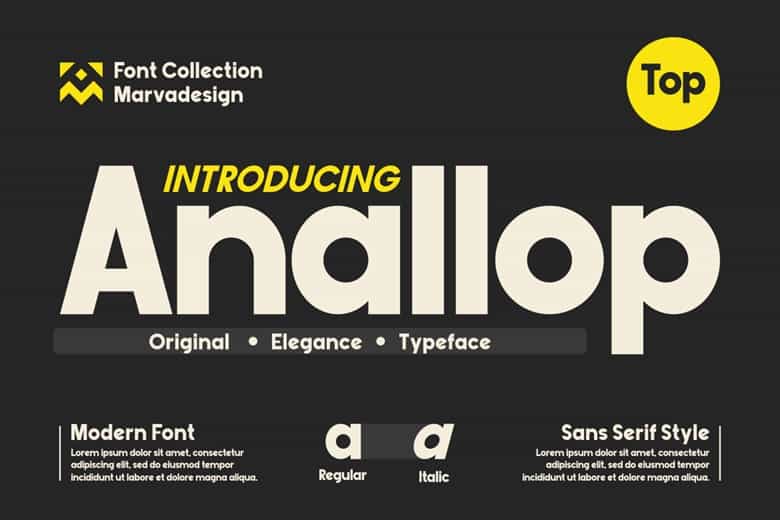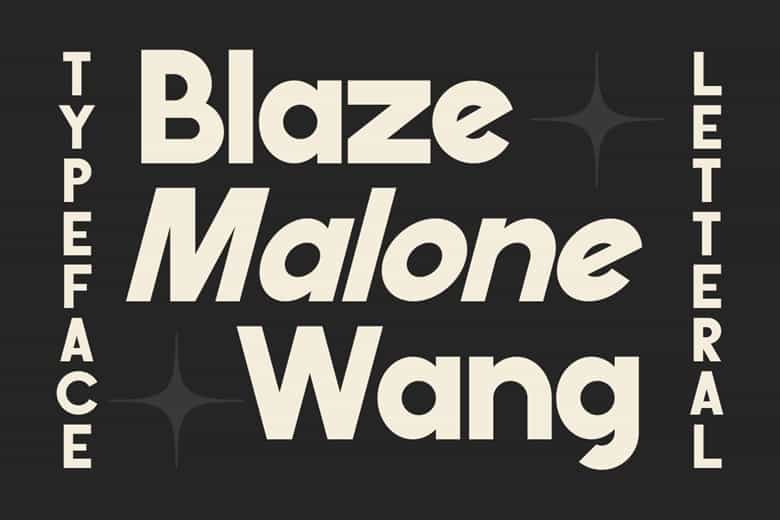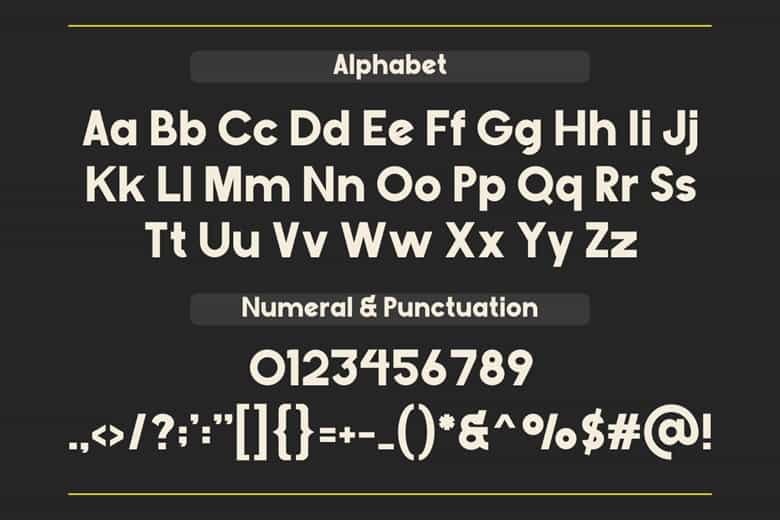
Anallop is a original bold and confident sans-serif font face. It does not matter what type of project you are working on, this font will be a great addition to your fonts collection, it can enhance any design.